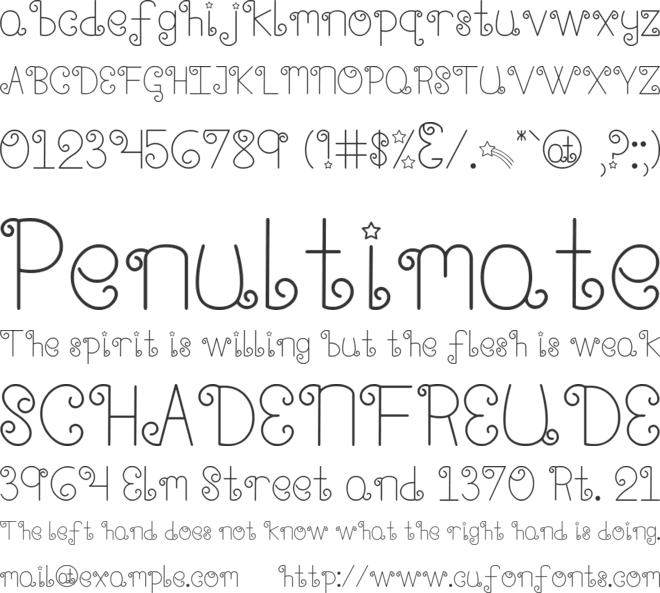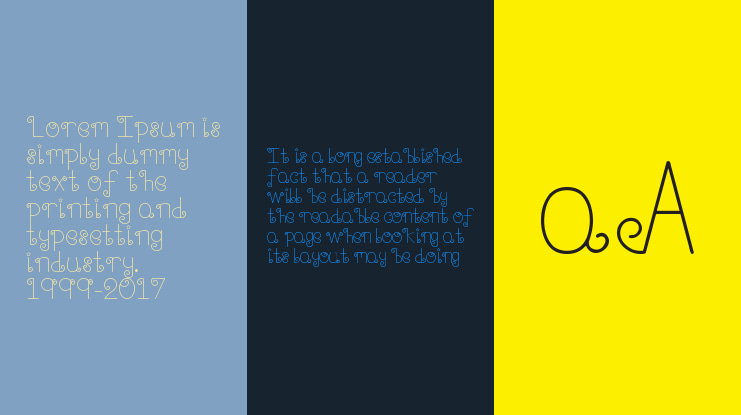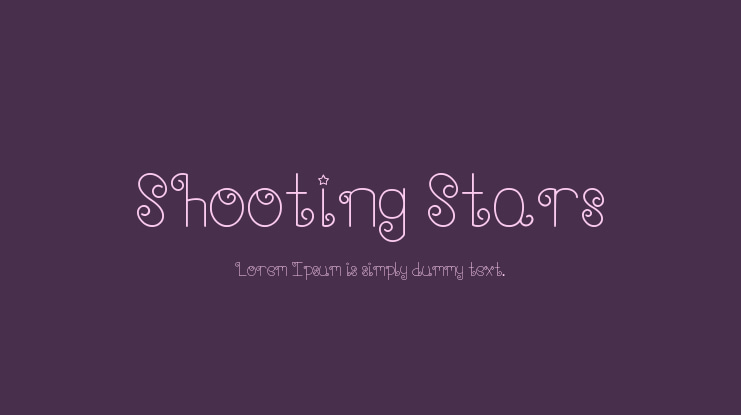
Shooting Stars Font
This font has a "t" that curls over. It can be accessed with the _ key (underscore). It only works properly with the following letters: a, c, e, m, n, o, s.
Example: If you spell the word 'Dreamt', you would type D-r-e-a-m and then an underscore to get the "t" that curls over :) Let me know if you have any questions and I will be happy to help you the best I can :D